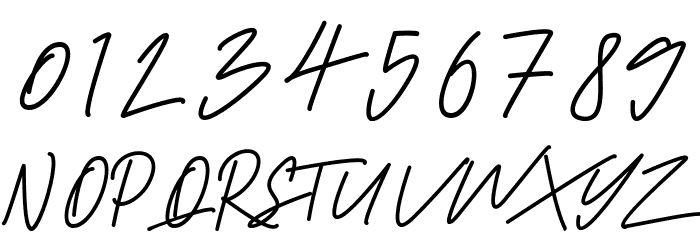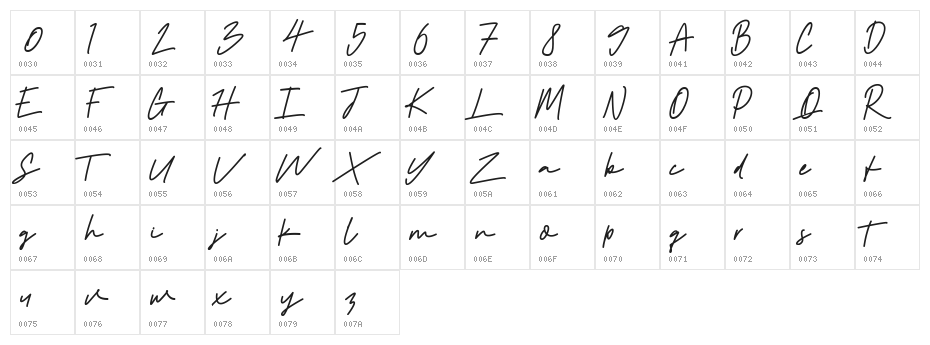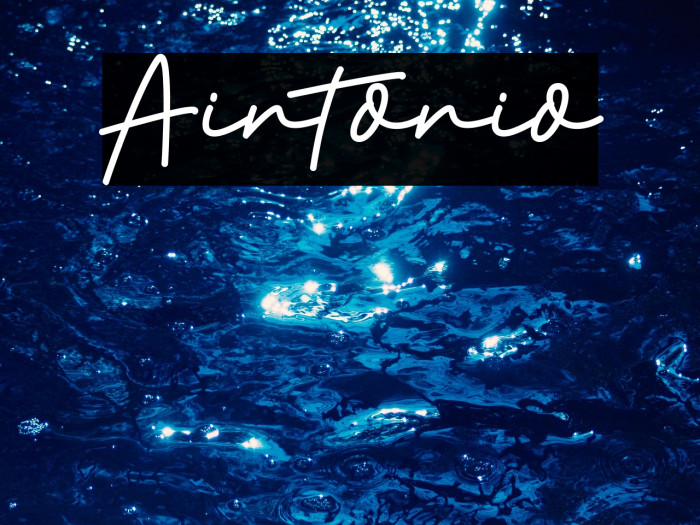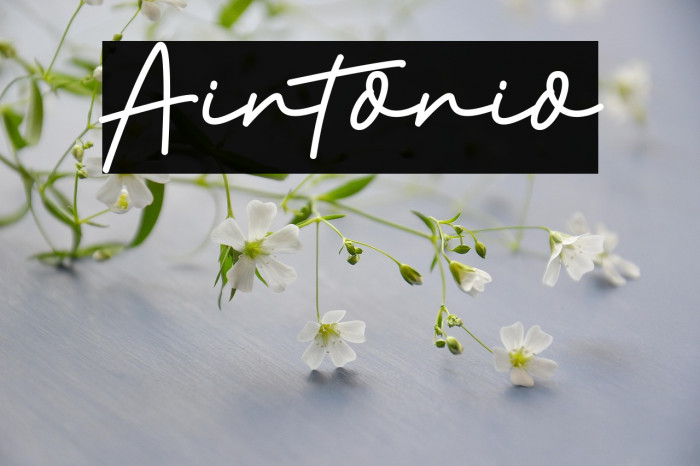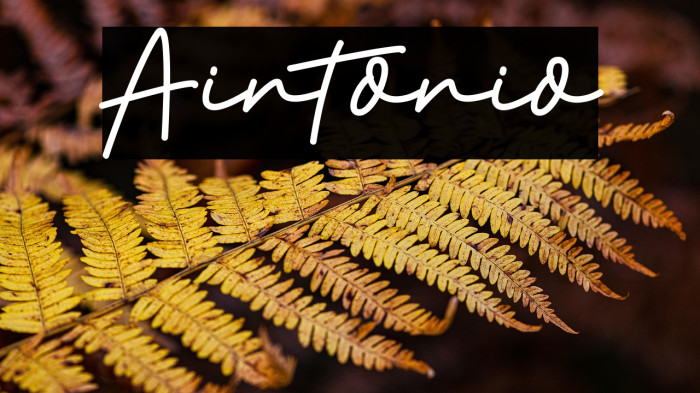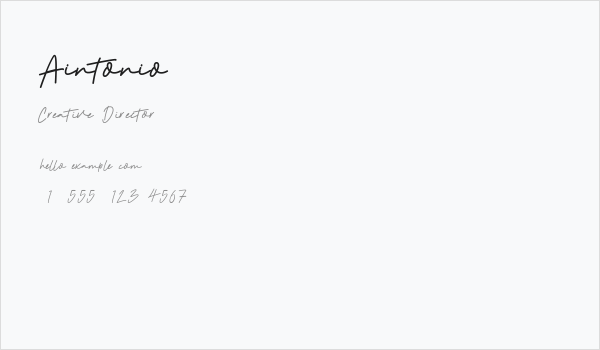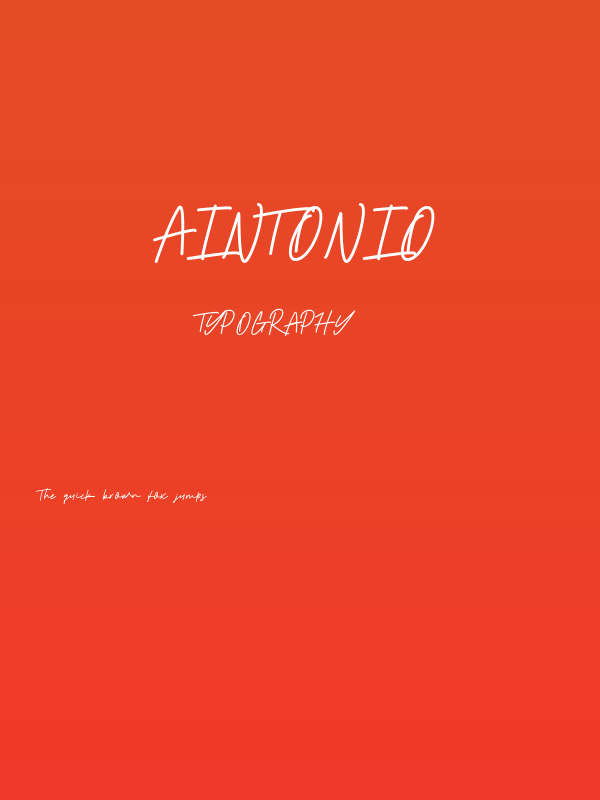
Aintonio Font
Aintonio Description
This font exudes a dynamic and expressive handwritten style, characterized by its fluid and cursive strokes. The letters are connected in a natural flow, giving it a personal and informal touch. The uppercase and lowercase letters maintain a consistent style, with a slight slant that adds to the overall movement and energy of the typeface. The numerals and special characters are crafted with the same attention to detail, ensuring a cohesive look across all elements. This font is perfect for projects that require a personal, handwritten feel, such as invitations, greeting cards, or creative branding materials.
| Proposed Projects | Ideal for invitations, greeting cards, personal branding, and creative projects. |